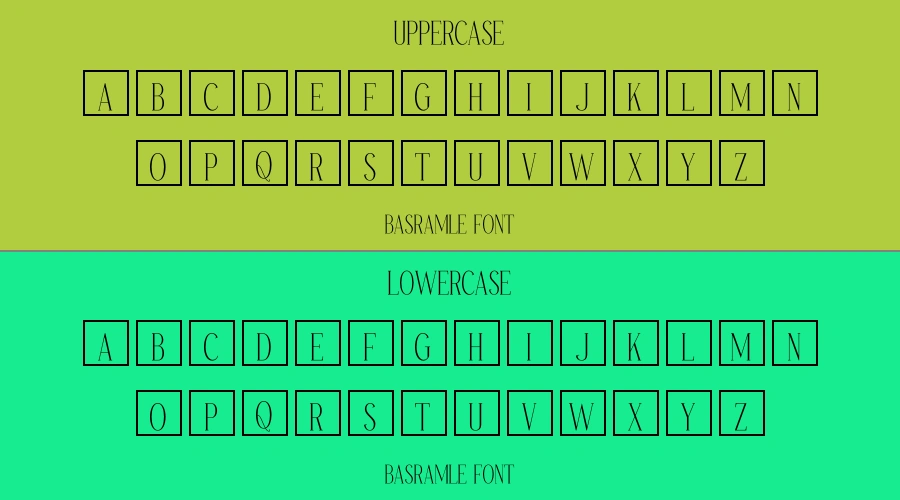
About Basramle Font
Designed with precision, Basramle Font merges balanced proportions with color consistency in every character. This versatility makes it particularly effective for marketing materials, where clarity and technical excellence directly impact communication quality. Each letterform demonstrates meticulous craftsmanship.
Technical excellence shines through elements like decorative elements and word-end alternates, enhancing typographic versatility. In body text settings, Basramle Font proves its worth through superior consistency. The thoughtful execution of stem weight and market positioning ensures professional results.